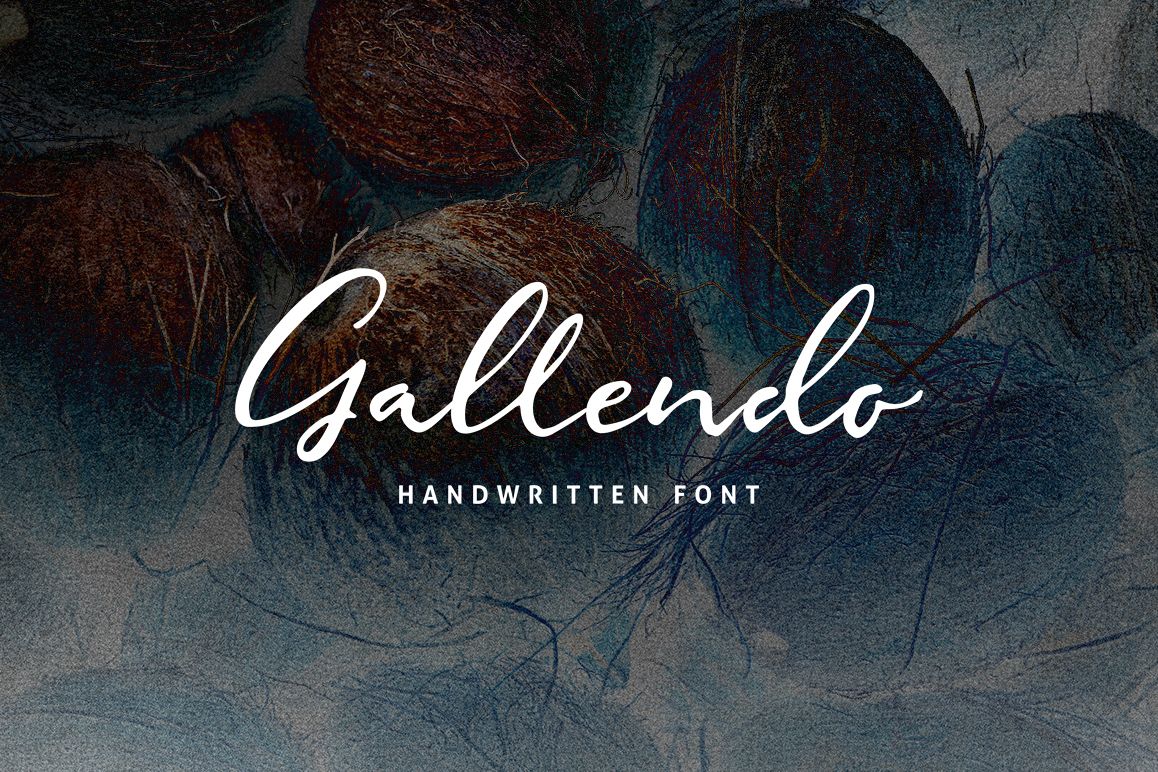
Gallendo
Introducing Gallendo is a handwritten script font. It's allow you to create stunning and easy hand-lettering in an instant. Ideal for logo, quotes, wedding, product label/packaging, fashion, letter, invitation, poster, merchandise, greeting cards, etc
• Numerals
• Punctuation
• Multilanguage
• Lowercase Alternates